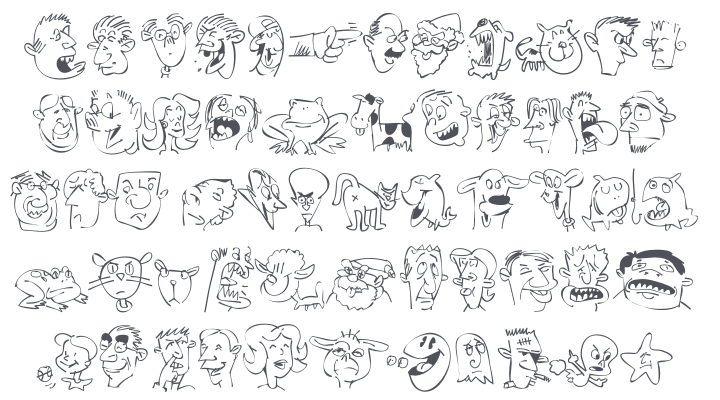
Sappy Mugs Font
About Sappy Mugs
Sappy Mugs is a delightful dingbat font rather than a text typeface — a collection of loosely hand-drawn cartoon faces and characters including people, cats, dogs, frogs, aliens, and other quirky creatures, each sketched with a wobbly, expressive line that feels like doodles from a bored artist's sketchbook. Perfect for children's media, novelty stickers, comic illustrations, greeting cards, and any design needing playful, hand-drawn charm.